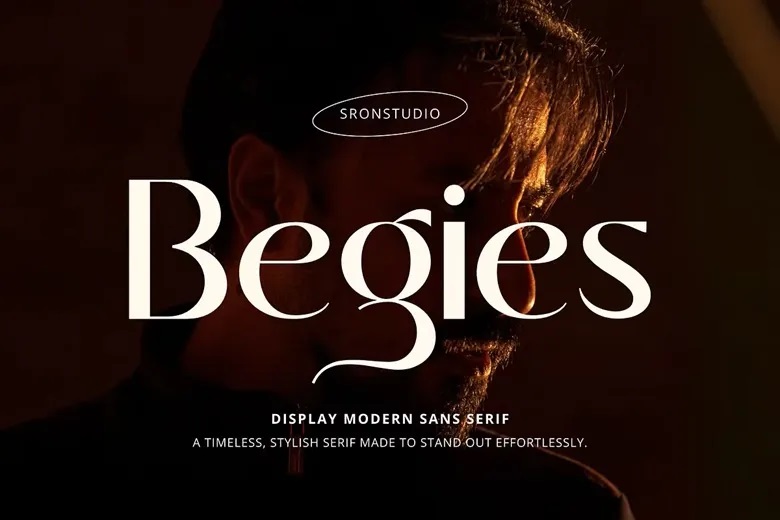
Begies is a contemporary sans serif display typeface that makes every headline pop out with confidence and fashion. Its smooth shapes, broad curves and modern design gives it a fresh, attractive look. It works well for posters, branding, packaging, logos and editorial layouts. This font combines modern simplicity with a striking character. It adds a refreshing and bold touch to any design.